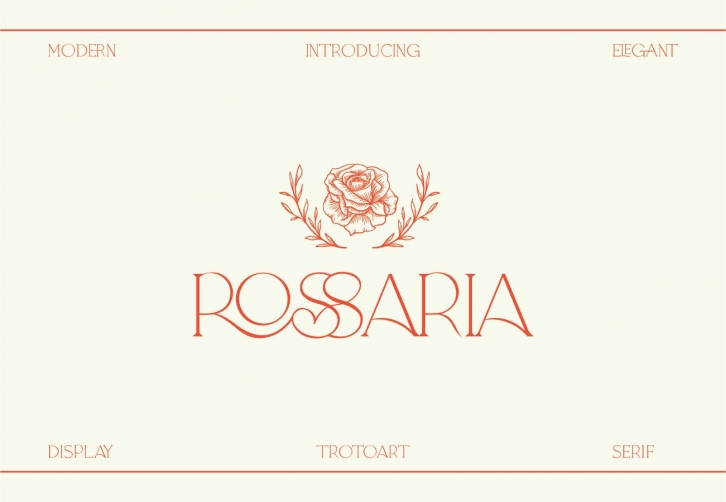
Rossaria is a classy and elegant serif display font. With a stylish and romantic look, this font is perfect for a wide range of delicate, feminine projects.